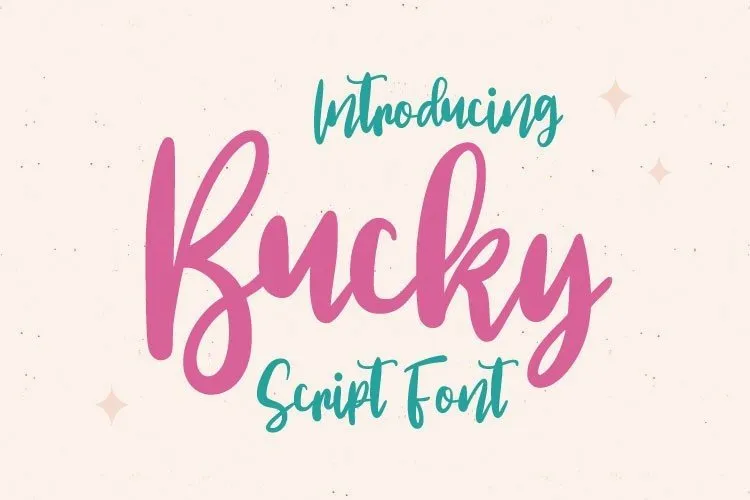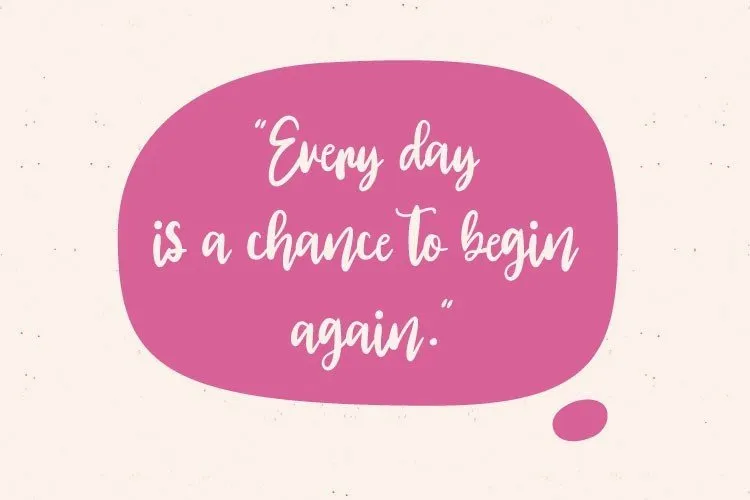
About Bucky Font
I’m a typographer and graphic designer who’s always exploring new script fonts for branding projects. While working on a recent logo design, I discovered the Bucky Font. It instantly caught my attention with its fun curves and bold strokes. I downloaded it from a free font site and decided to test it out in a client’s visual identity project.
The results were impressive as the Bucky Font gave the brand a fresh, elegant vibe that looked great both in print and digital form. This review comes from that hands-on experience, not theory, so you’ll get the real story of how it performs in design work.
The Font and Its Designer
The Bucky Font is a charming script font created by Pustudio. It blends modern design with a classic handwritten touch, giving your text an approachable yet stylish feel. The strokes are smooth but bold enough to stay readable at different sizes. This isn’t a typical typeface you forget after one use; it stands out for its unique character and balanced form.
Each letter in Bucky carries personality. The loops and tails flow with just the right rhythm, making it perfect for logos, invitations, and typography-based branding. Pustudio designed this font for creative use, giving designers a chance to create something expressive and elegant without overcomplicating layouts.
The font feels modern yet timeless, merging soft handwritten energy with professional structure. When you look at the preview, you’ll notice that it’s more than a decorative script font. It’s a design tool. The Bucky Font Free Download option allows anyone to explore its versatility before committing to larger projects. With clean spacing, consistent weight, and refined details, it offers a beautiful balance between formality and playfulness.
Key Features of Bucky Font
The Bucky Font brings a blend of style and substance. Its handwritten character gives a natural human warmth to your designs. Each curve feels intentional, giving words a bold yet elegant presence. This makes it ideal for logos and branding, social media posts, and invitation layouts where personality matters.
Its typography is both strong and classic, but the modern style keeps it fresh for today’s creative projects. It pairs beautifully with sans-serif or serif fonts, depending on the tone you want to create. The Bucky script font adapts easily whether you’re creating elegant logos, branding, or standout social media visuals.
What sets it apart is how effortless it looks while still feeling thoughtfully crafted. It’s not too fancy, not too minimal, just the right balance. If you enjoy fonts that combine style, uniqueness, and practicality, Bucky hits that sweet spot.
The Bucky Font fits in any design where creativity meets personality. I’ve used it on brand identities, packaging, and invitation cards, but it works just as well in social media posts and digital banners. Its natural handwritten feel adds authenticity, making every project look more personal.